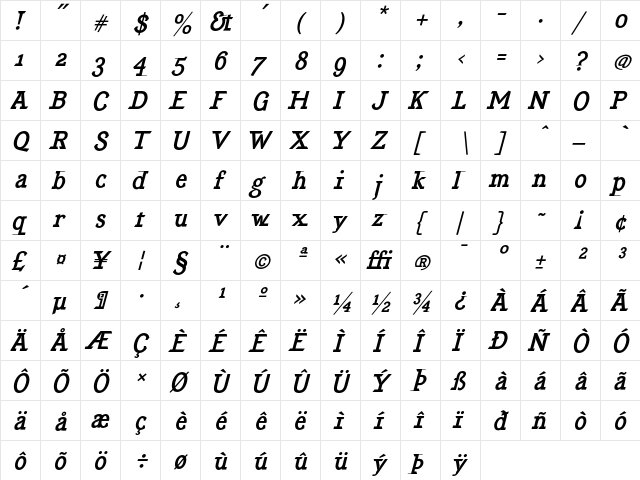
EquipoizeSerif BoldItalic Font Preview
Design Context for EquipoizeSerif Typeface
EquipoizeSerif brings classic typographic sensibility to the table — its serifs and measured letterforms reflect centuries of print heritage. Its italic angle brings a sense of urgency and motion to the letterforms. The heavy weight commands attention and anchors typographic hierarchies.
Pro Tip: Use EquipoizeSerif for editorial body copy and considered headline work. Pair with a neutral sans for UI elements or captions to create a classic hierarchy.